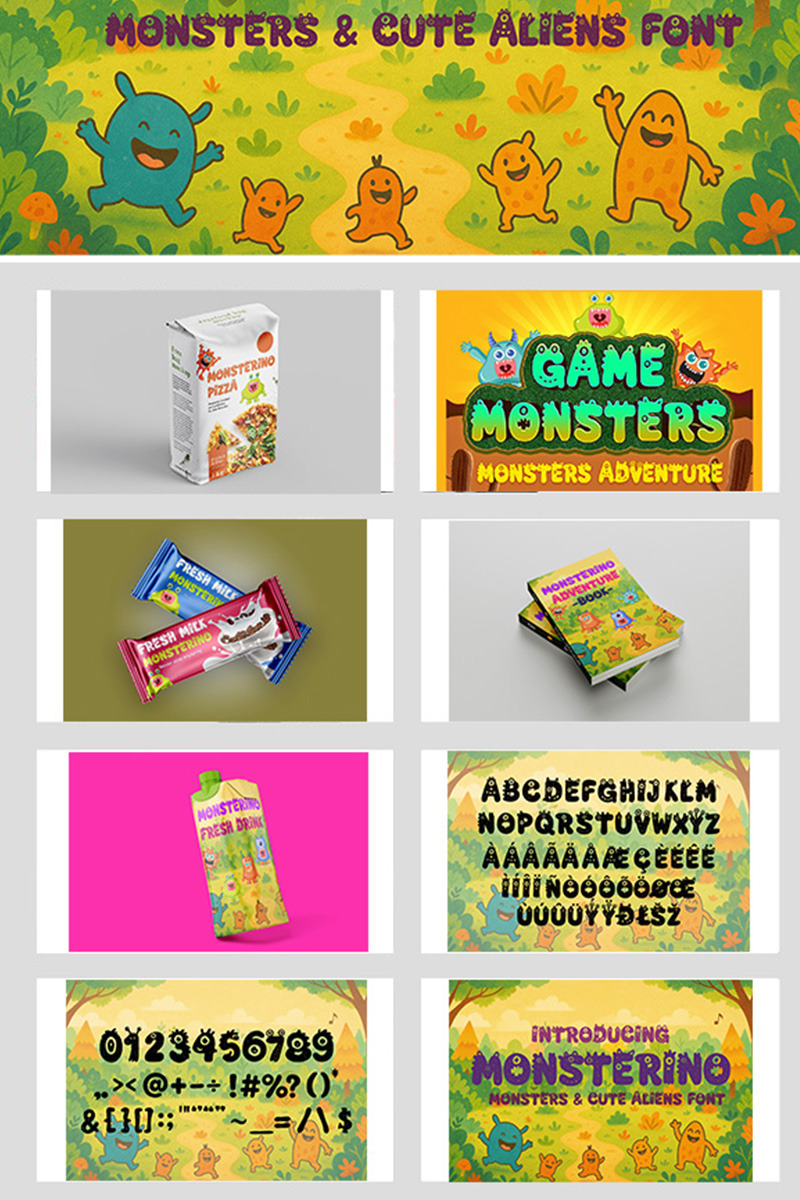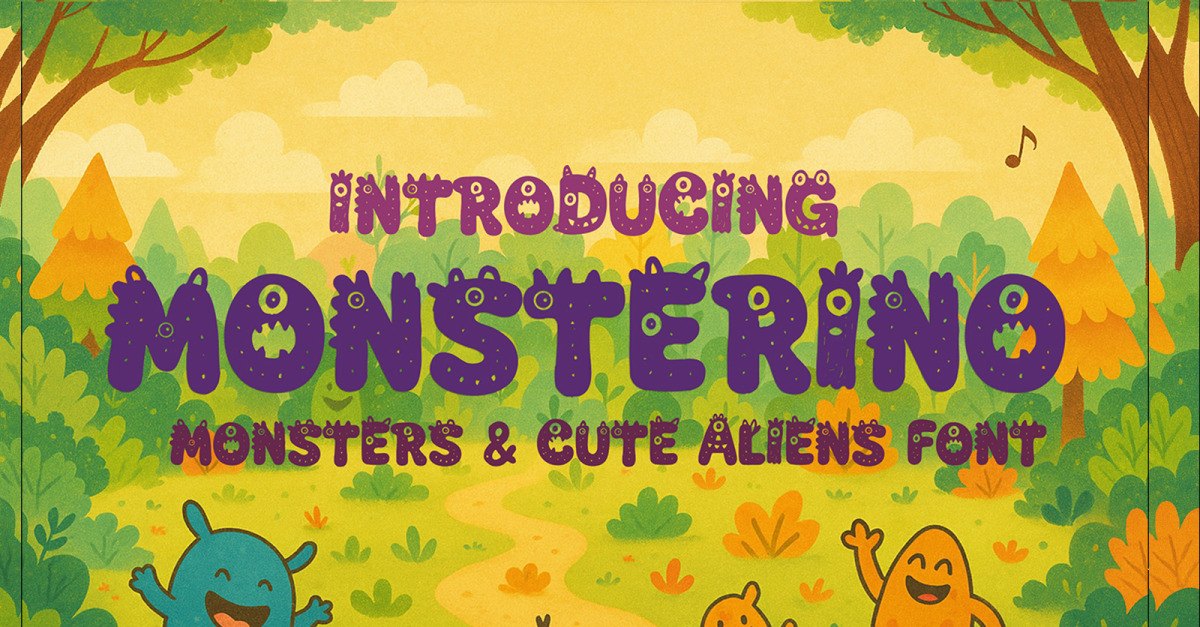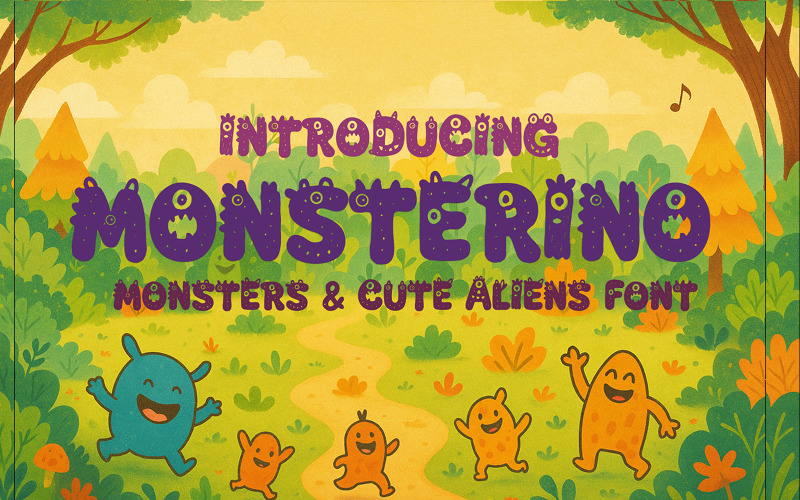
Monsterino Children Kids Font
Monsterino Kid Font
Monsterino is a playful and whimsical font inspired by adorable monsters and cute aliens—perfect for children's books, cartoons, games, crafts, classroom fun and creative projects.